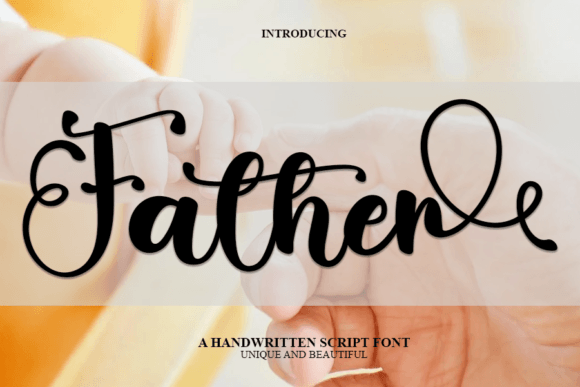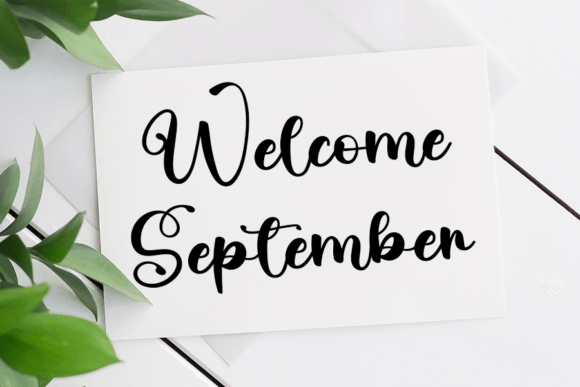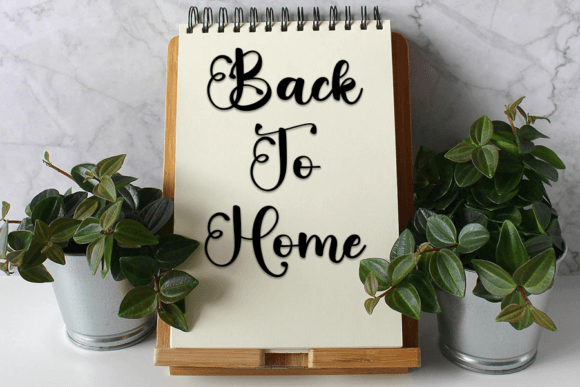
About Father Font
“Father” is a delicate handwritten font that has been meticulously crafted to infuse a sense of coolness and uniqueness into your designs. This versatile font can be applied to a variety of purposes, including writing letters, creating invitations, labeling food products, crafting eye-catching titles, and much more.
One of the defining features of “Father” is its delicate and unique style. The font’s characters possess a distinct and charming quality that adds character to your designs, making it a standout choice for projects where you want to convey a sense of personality and authenticity.
This font’s versatility ensures that it can be employed across a wide range of creative applications. Whether you’re composing heartfelt letters, designing elegant invitations for special occasions, labeling food products with a touch of sophistication, or creating eye-catching titles for various projects, “Father” adapts seamlessly to your creative vision.
The name “Father” carries a sense of authority and wisdom, and the font reflects these qualities with its careful design. The characters are crafted with precision, creating a harmonious and visually pleasing composition. “Father” has the power to infuse your designs with a sense of authenticity and uniqueness.
Incorporating “Father” into your design projects will undoubtedly add a touch of elegance and individuality. Its delicate handwritten style and distinctive character arrangement make it an ideal choice for designs that aim to make a statement and capture attention. Embrace the delicate charm and uniqueness of “Father” in your next project, and watch as it transforms your creations into works of art with a cool and distinct design.